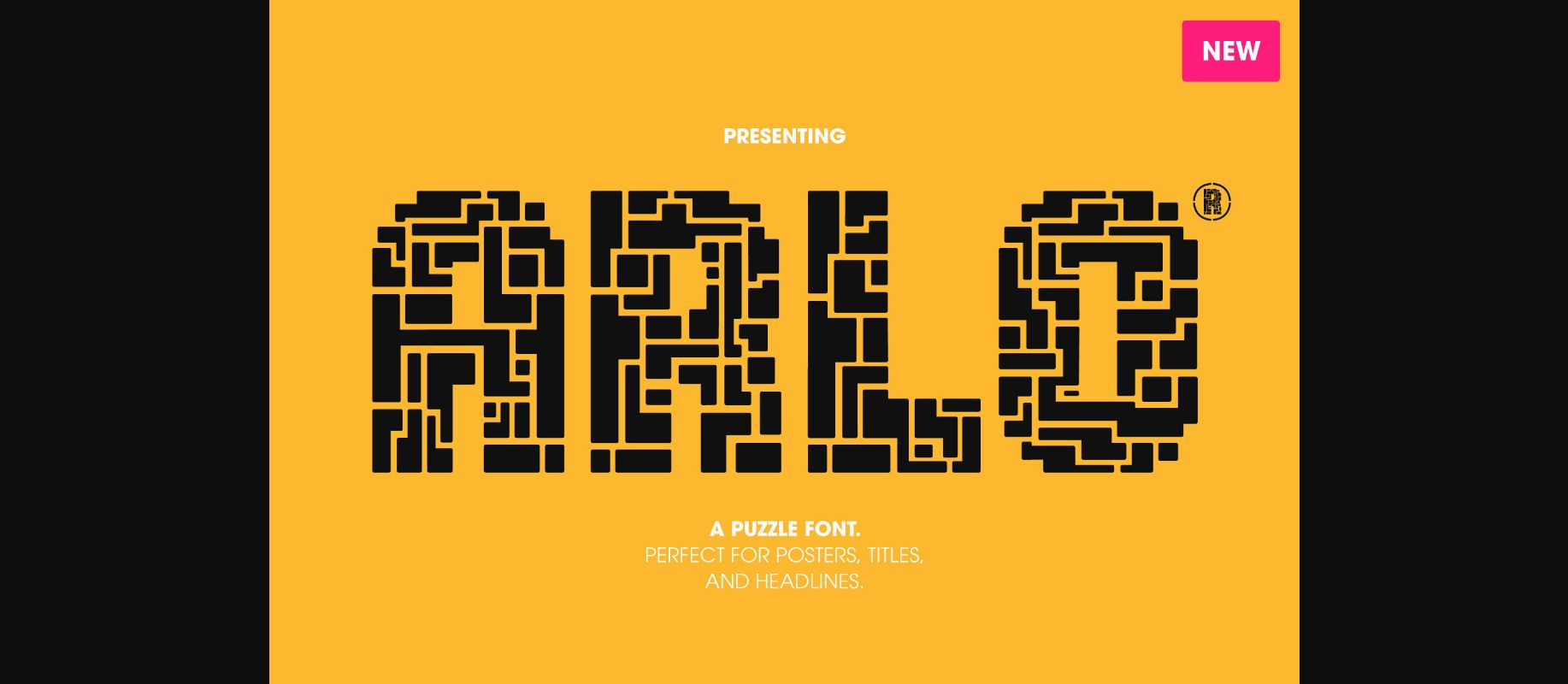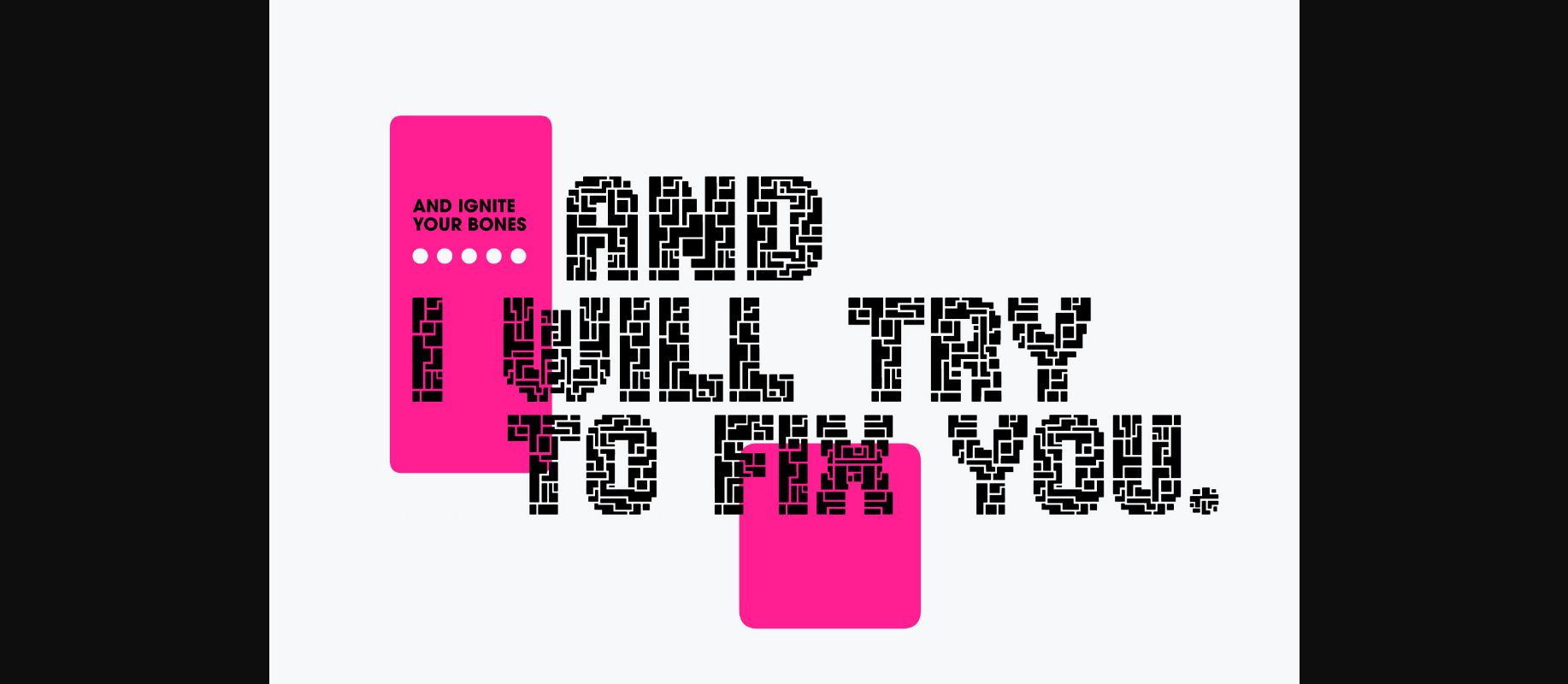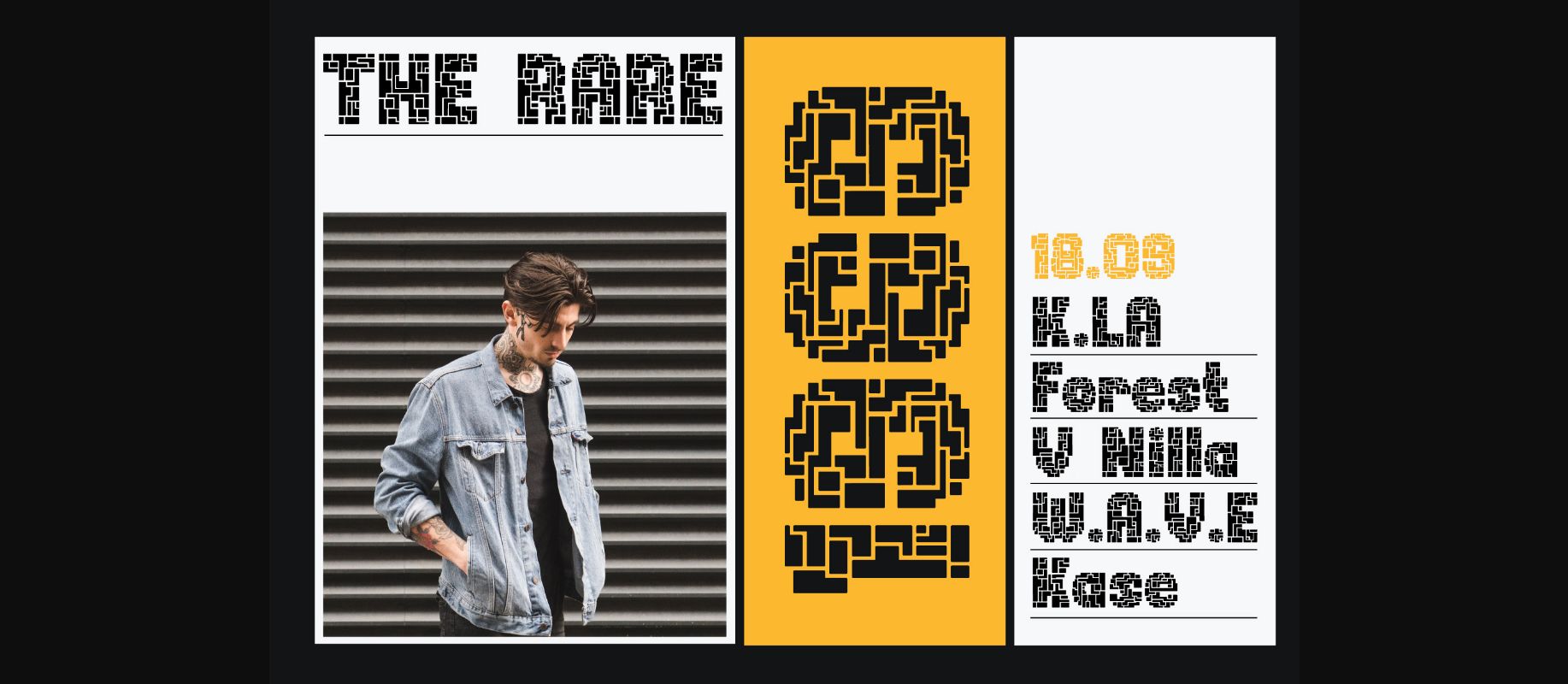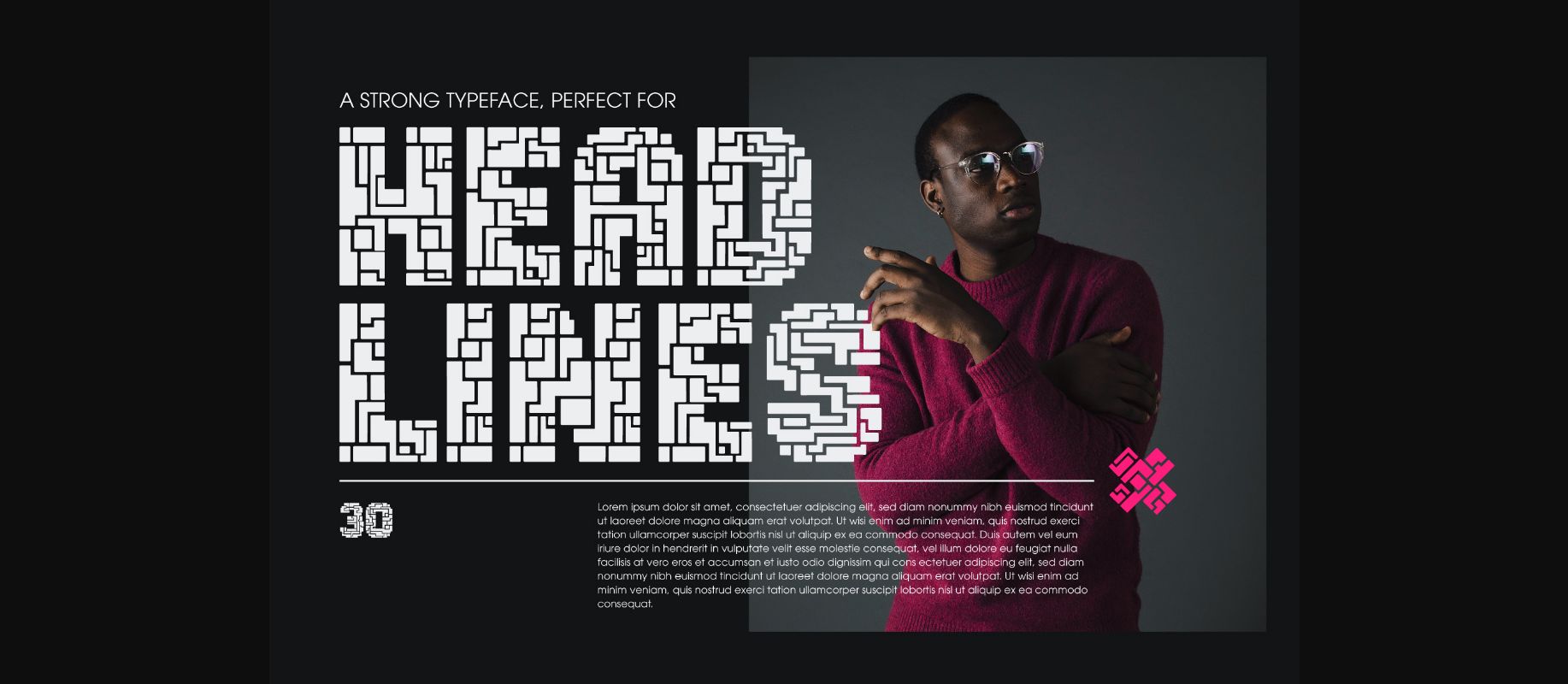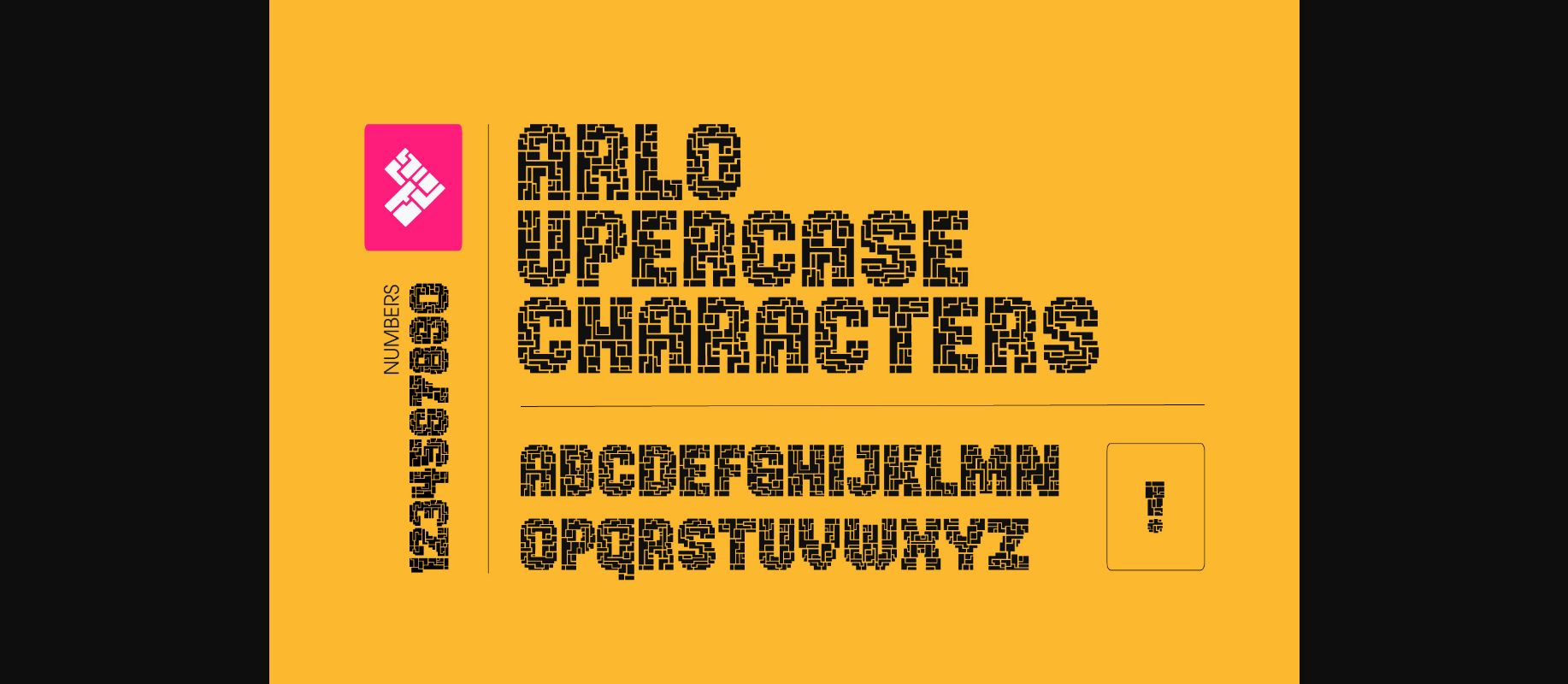
About Arlo Font
Arlo is a unique puzzle-inspired decorative typeface. Each letter is distinctive and can stand on its own, that’s what makes Arlo truly unique. The viewer is bound to get lost inside the puzzle while looking at your design. This is perfect for attention-grabbing posters, logos, headlines, apparel, packaging, and virtually anything you can imagine.